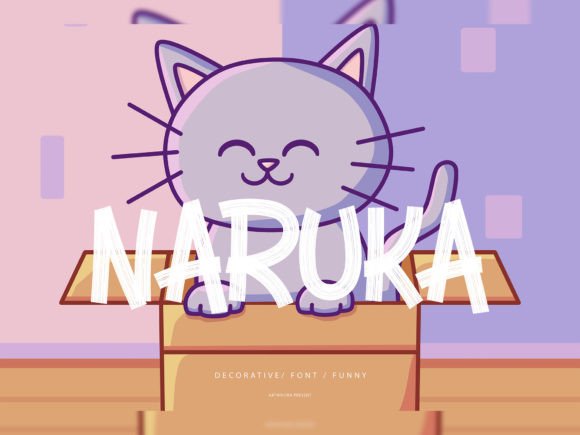
Unleash the captivating allure of Naruka Font, an elegant brush font that dances across your designs, leaving a trail of charming impressions. This text document font, meticulously crafted by the talented artnivora.std, is a masterpiece of artistic expression.
Naruka Font is not merely a collection of letters; it's an artistic journey that transforms your words into masterpieces. Its fluid strokes and enchanting curves add a touch of magic to every project, whether it's a heartfelt quote, a stylish packaging design, or any creative endeavor that calls for a touch of elegance.
With Naruka Font, you'll discover a world of limitless possibilities. Let your imagination soar as you explore the depths of creativity and bring your artistic visions to life. Let the world witness the beauty of your words, adorned with the captivating grace of Naruka Font.
More than just a font, Naruka is an experience, an invitation to embrace the artistry within you. As you watch your words come alive, you'll feel a sense of pride and accomplishment, knowing that you've chosen a font that truly reflects your unique style and creative flair.
Naruka Font is more than just a font; it's an investment in your creative pursuits. Embrace the power of beautiful typography and watch as your projects blossom into stunning creations that captivate and inspire.